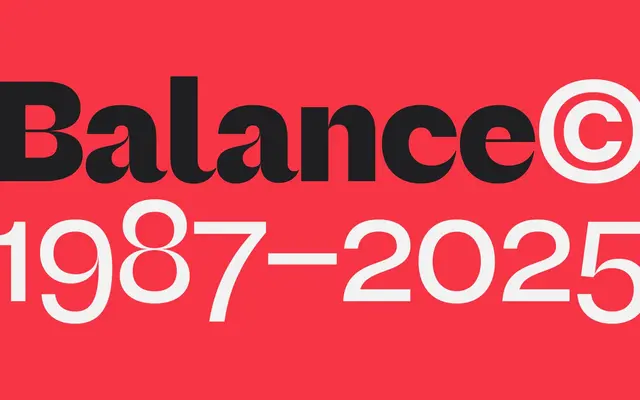
A high-contrast display sans with subtle serif-derived details across six weights, aimed at branding and editorial use.
Six weights from Light to Black give Remixa a broad tonal range for headline and display work. Serif-inspired details and visible stroke contrast distinguish it from a plain grotesque, while a generous x-height keeps it legible at large sizes. OpenType features include standard and discretionary ligatures and stylistic alternates, making it a reasonable choice for magazine layouts, brand identities and logo work.
A modern sans-serif with serif-inspired detailing and high contrast, positioning it between a pure grotesque and a glyphic display face. The large x-height and display orientation reinforce its contemporary sans classification.